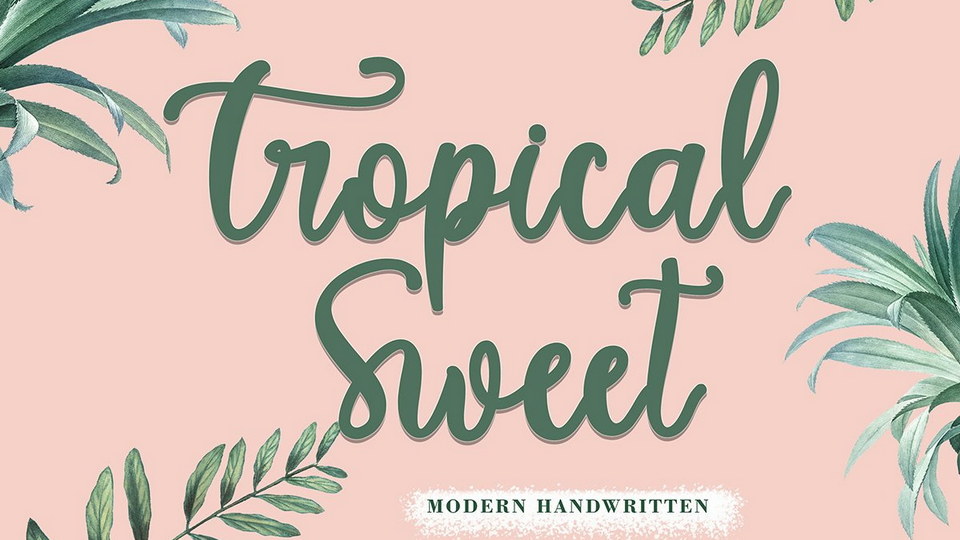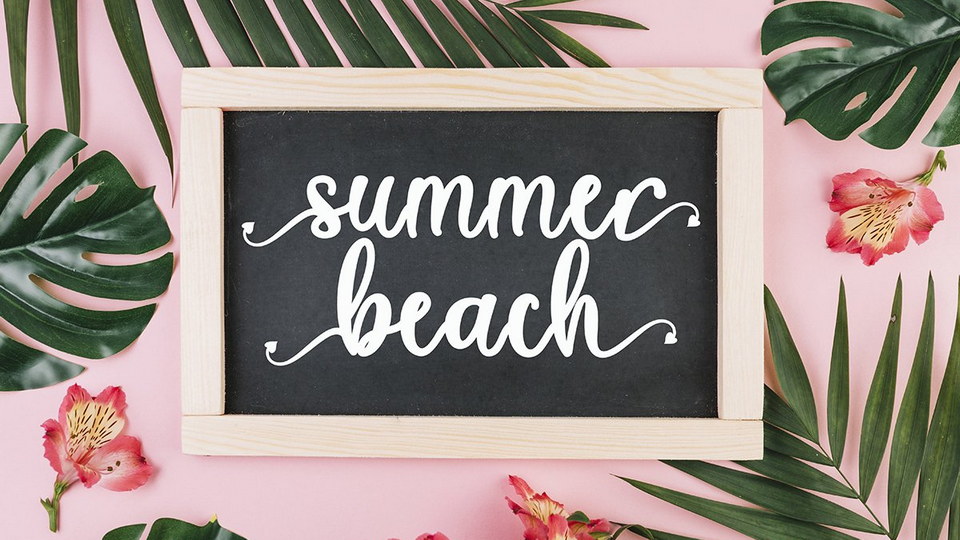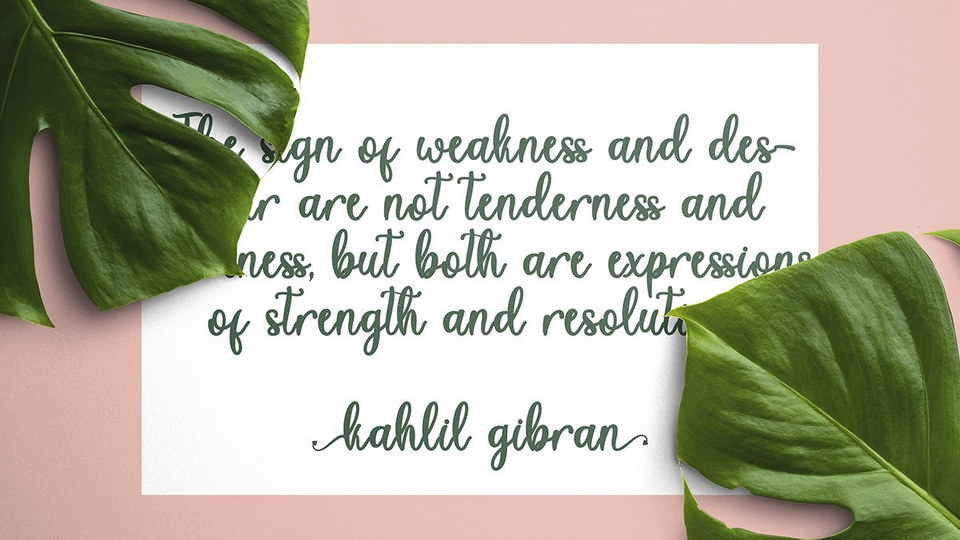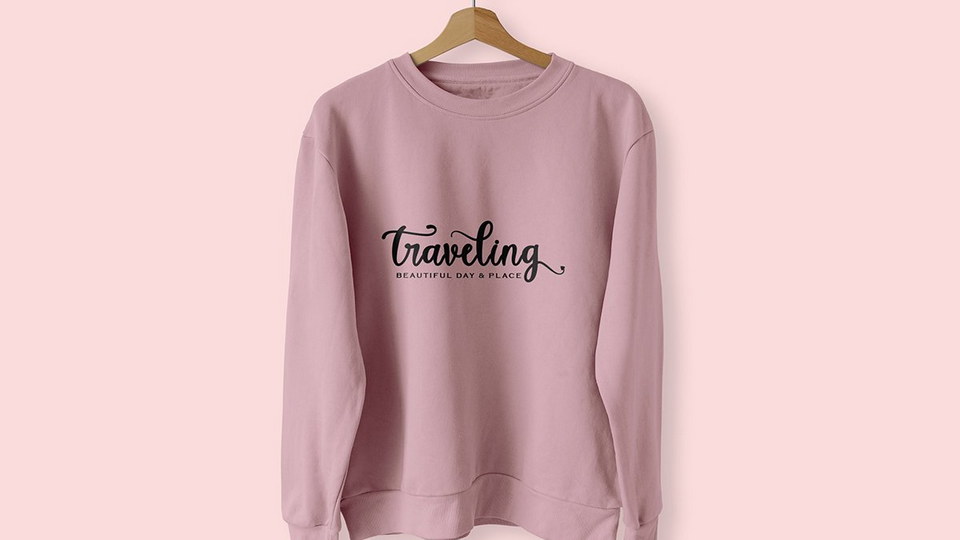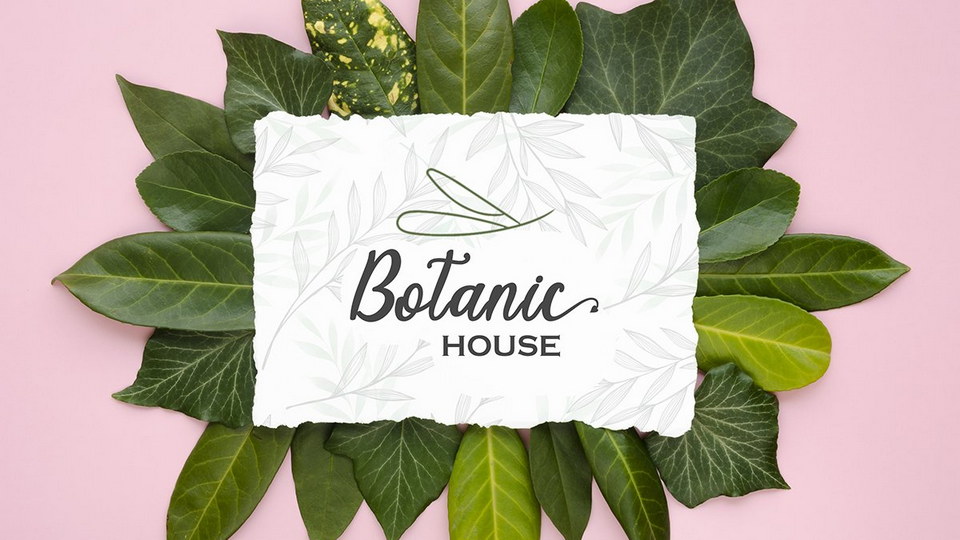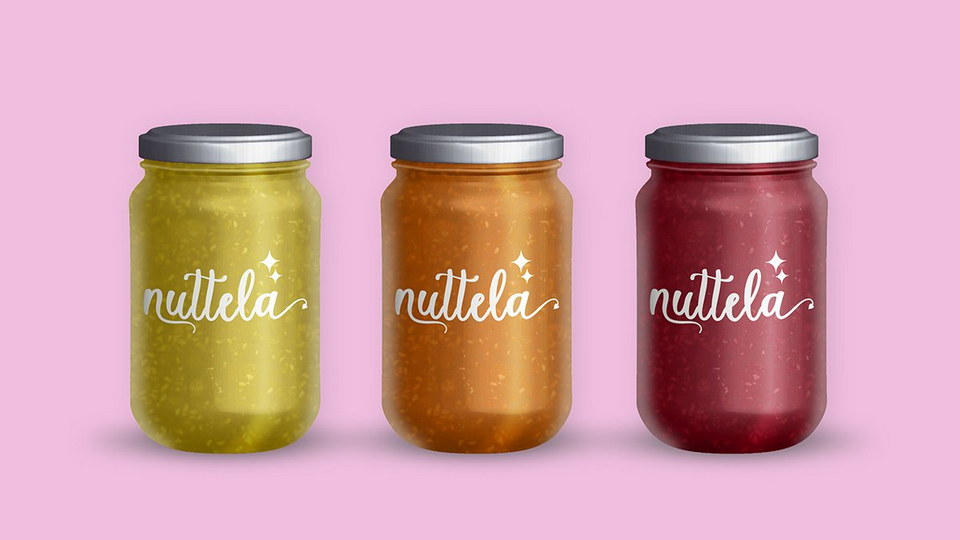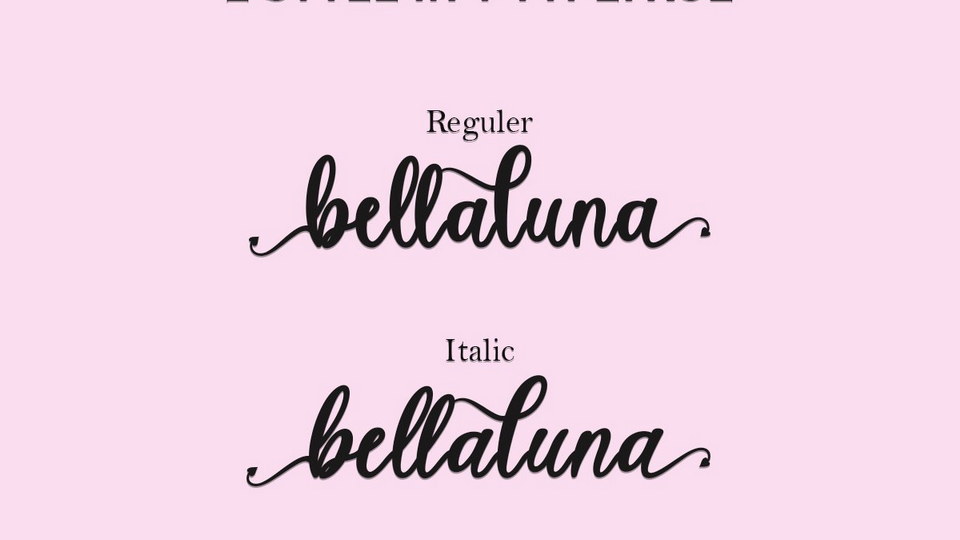
Tropical Sweet is a calligraphy font with a modern design. This font is very easy to use. The embellishments on the letters are also easy to use, because they have been specially designed for consumers. This font is perfect for all jobs and occasions.
Tropical Sweet font can be used for summer, tropical, spring, logos, branding, banner, poster, print, wedding, photography, holiday, traveling, backpack, business, promotion business or product promotion.